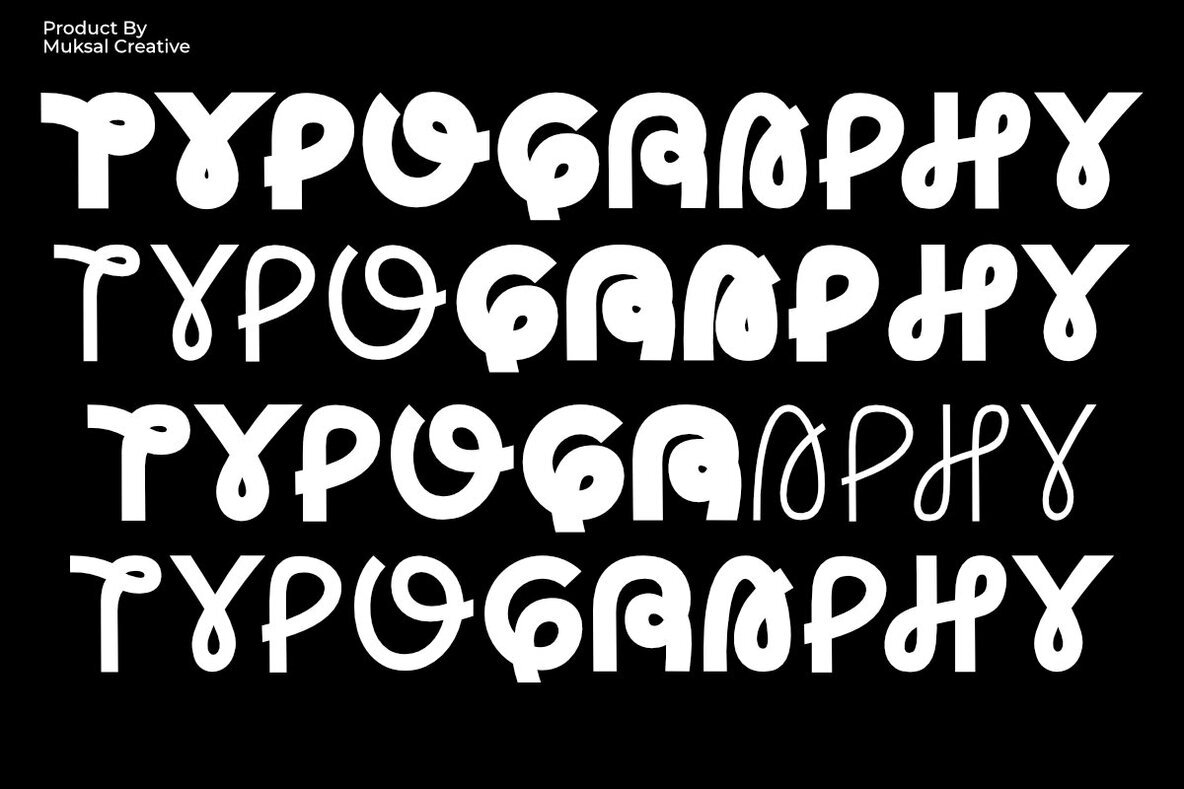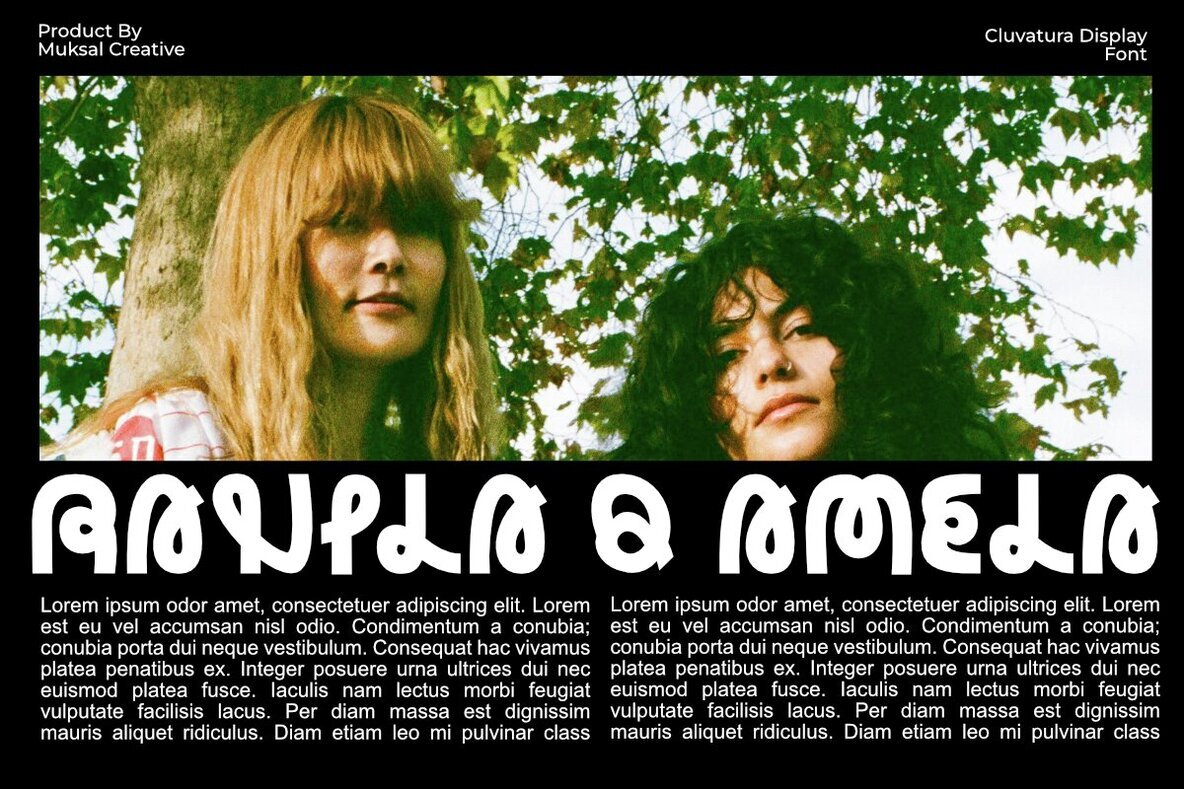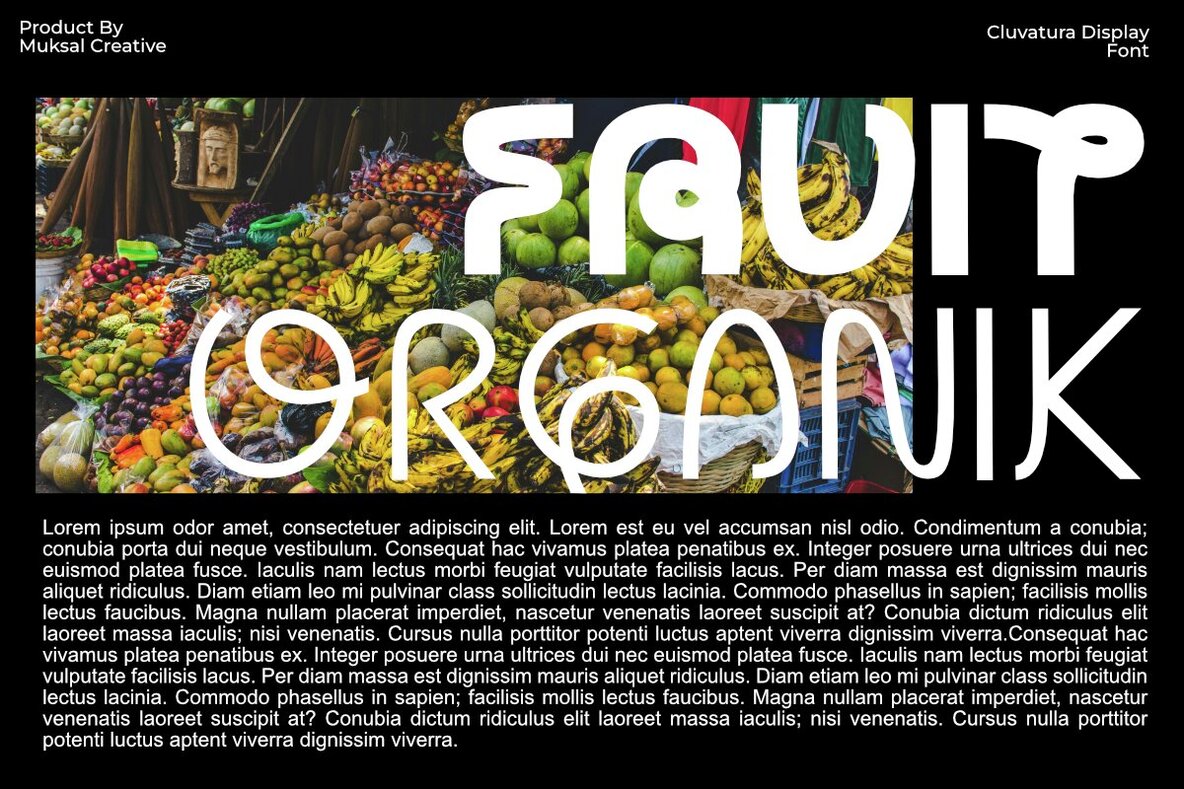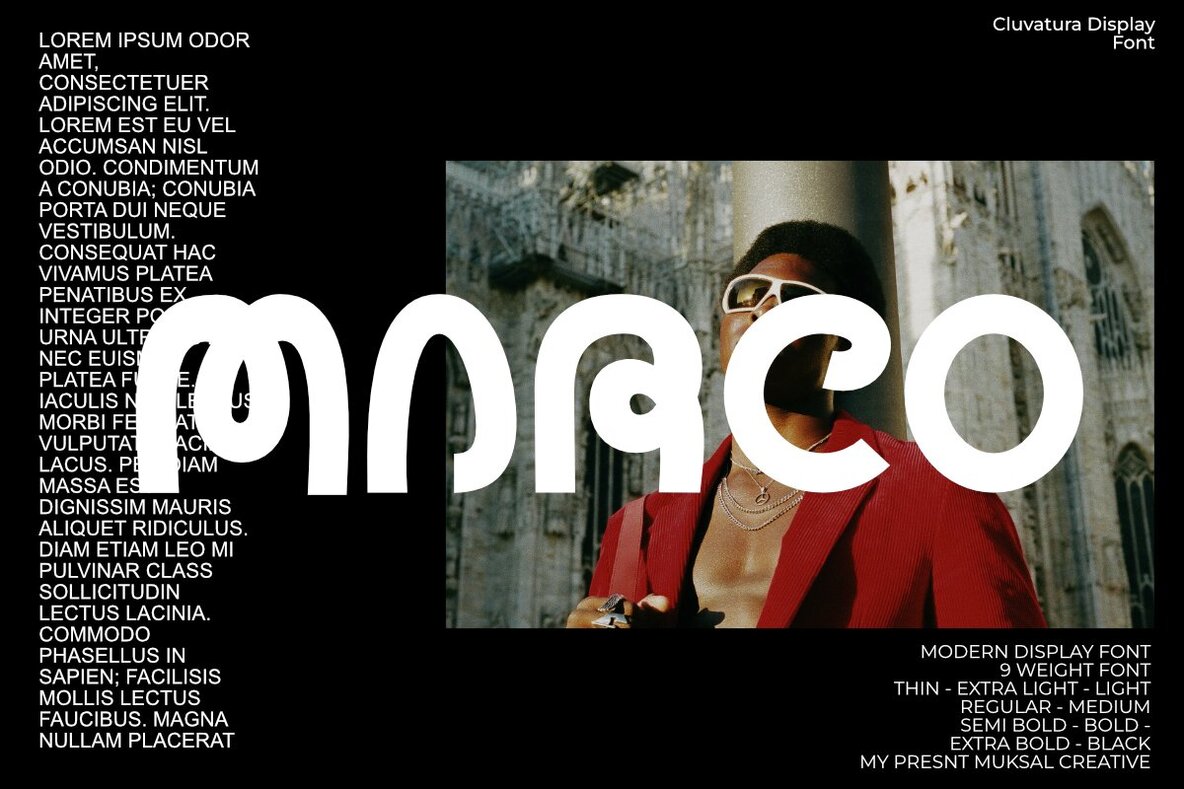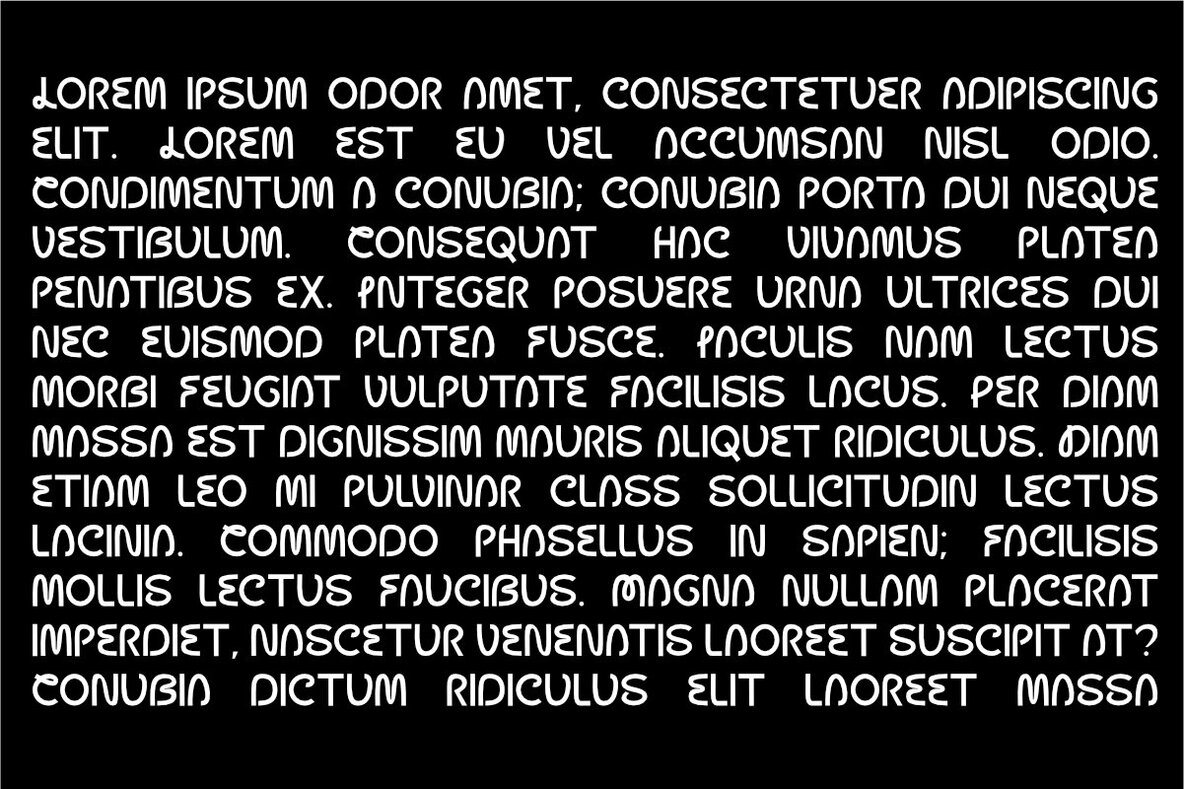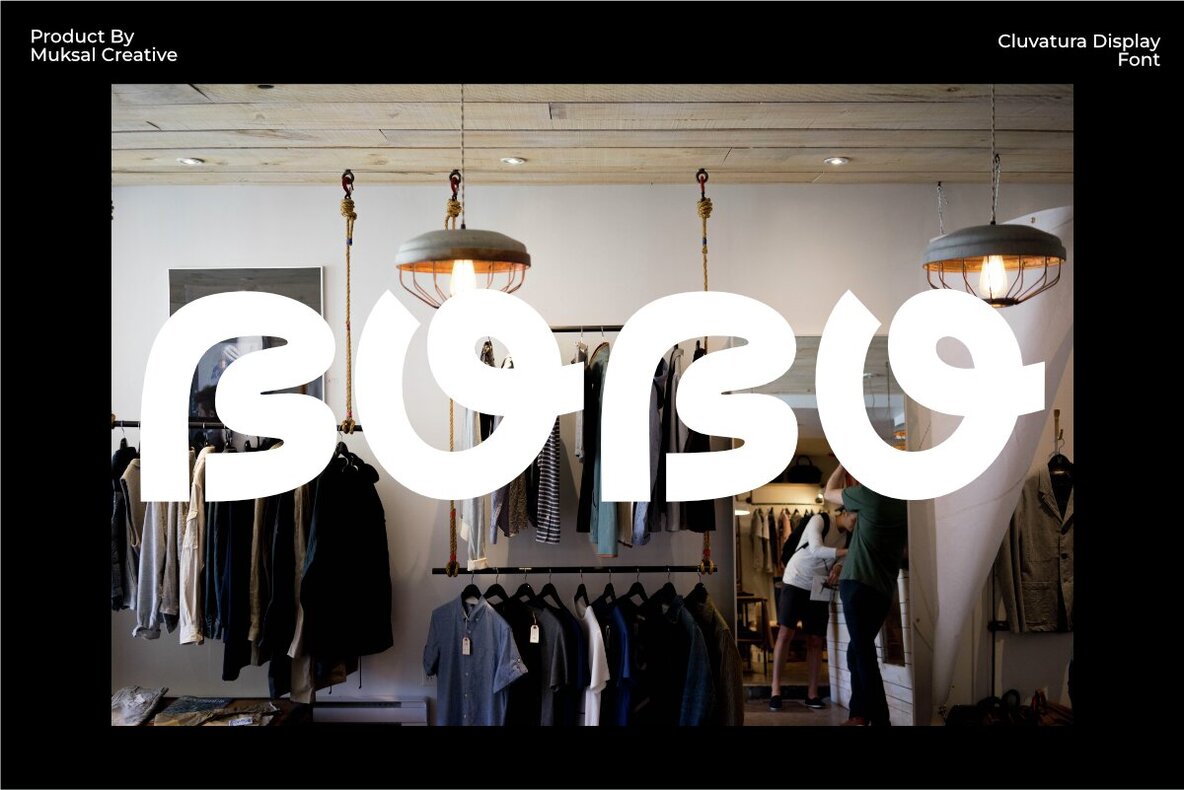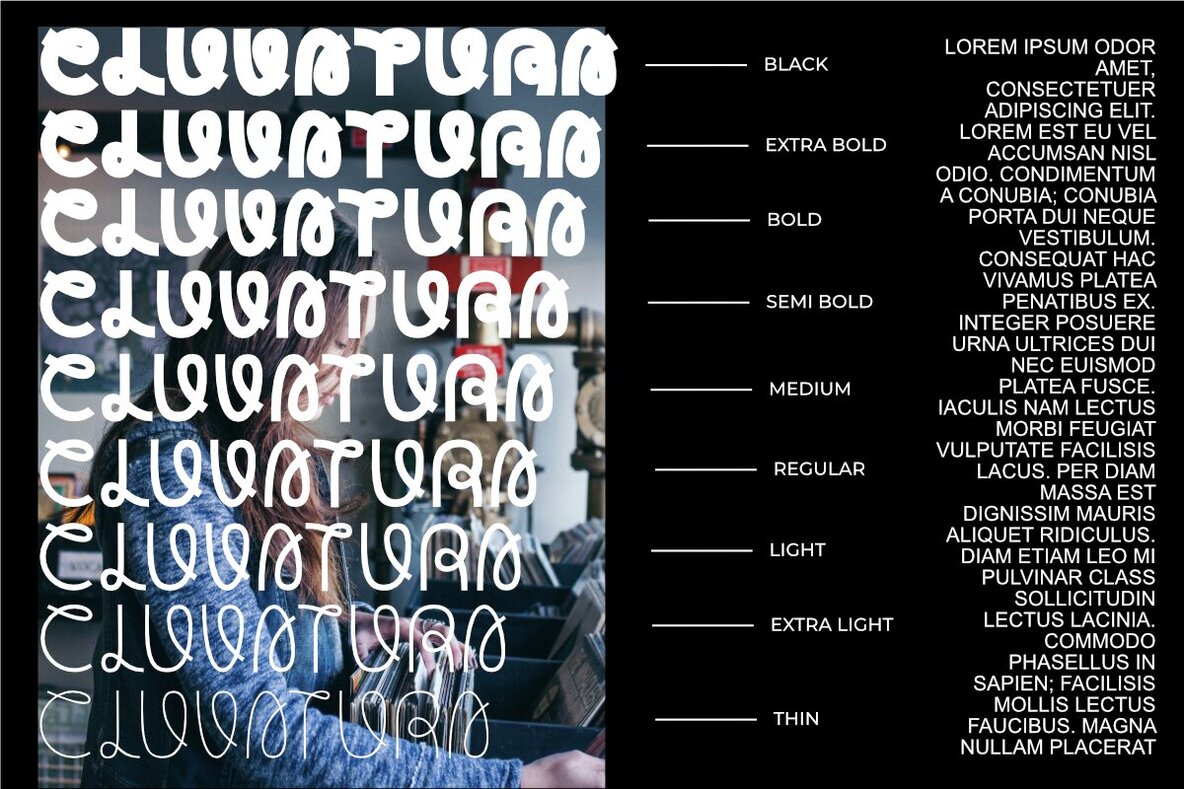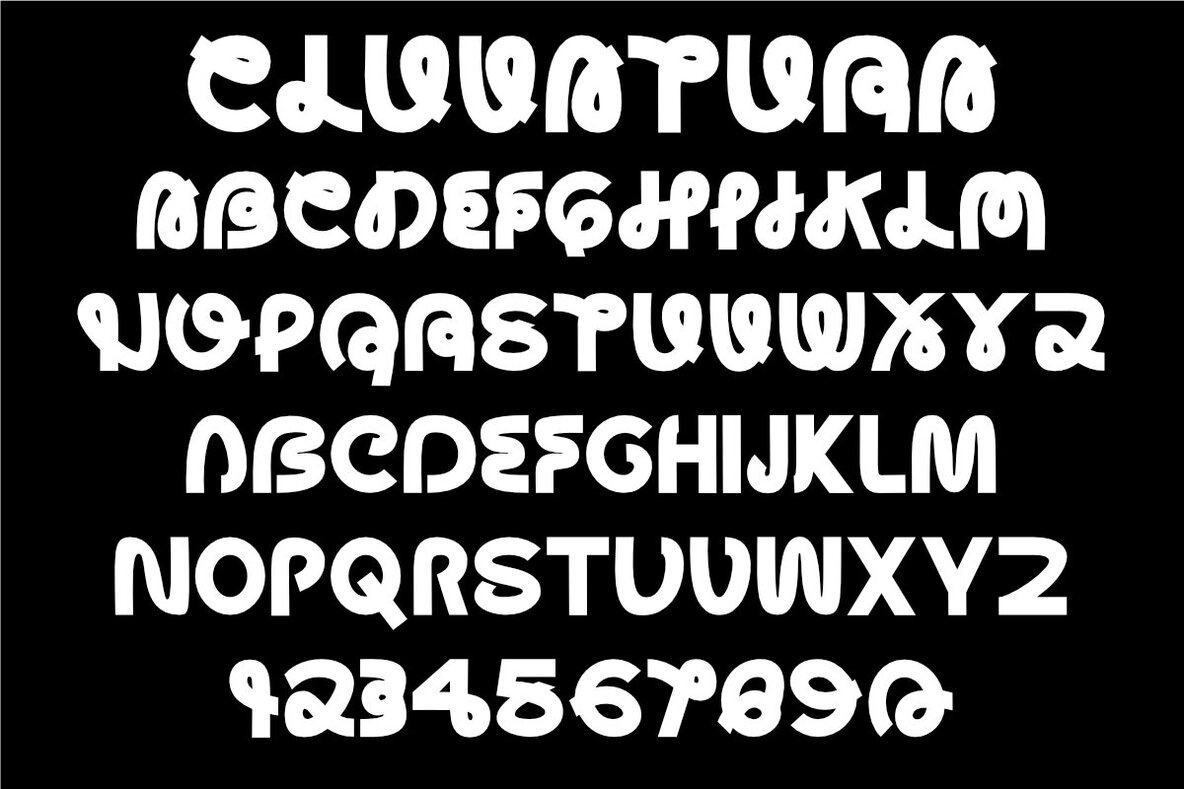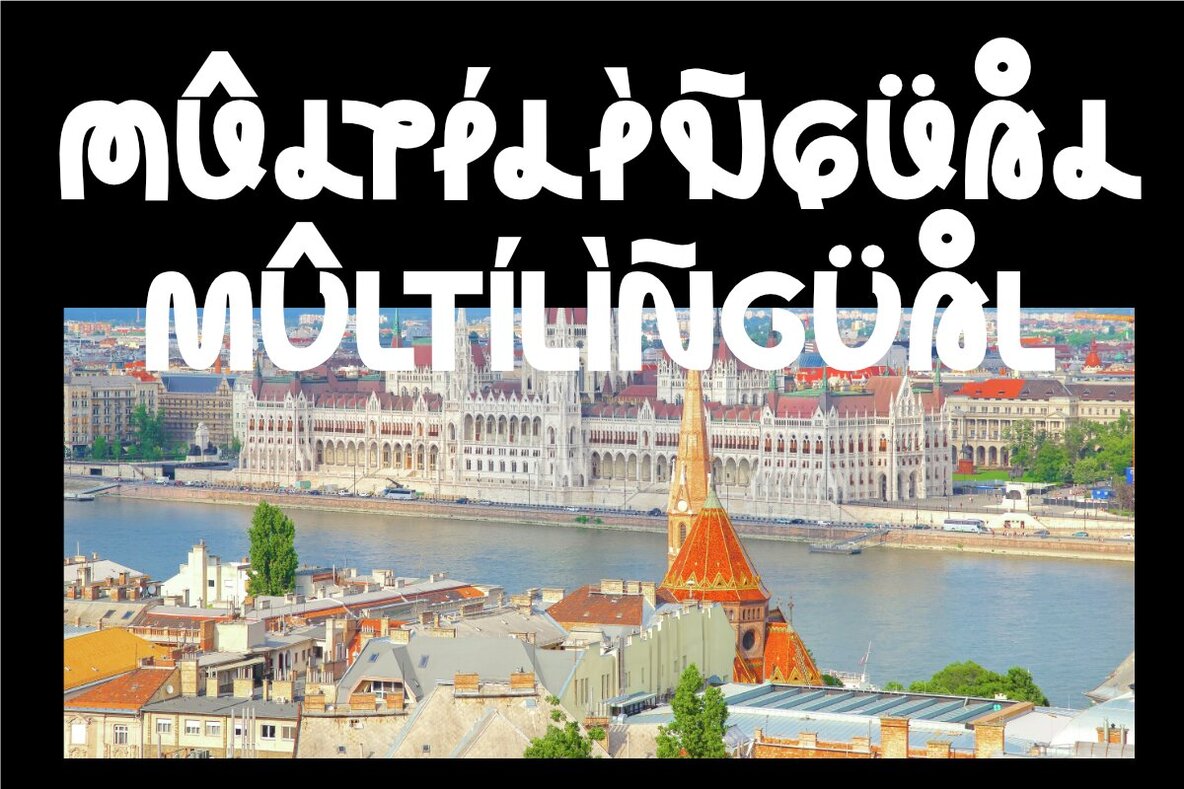
Cluvatura is a unique and dynamic display font designed to capture attention and add a creative touch to any design. With nine variations from Thin to Black, Cluvatura offers exceptional flexibility, allowing you to create striking and characterful designs.
This font stands out with its smooth curves and bold shapes, giving it a modern and playful feel. Ideal for posters, branding, headlines, and other creative projects, Cluvatura combines uniqueness and boldness in every character. Let Cluvatura be your go-to choice for designs that need a strong and stylish presence, ready to elevate your work to the next level.
• Lowercase and Uppercase
• Numerals & Punctuation
• Accented characters
• Multiple Languages Supported